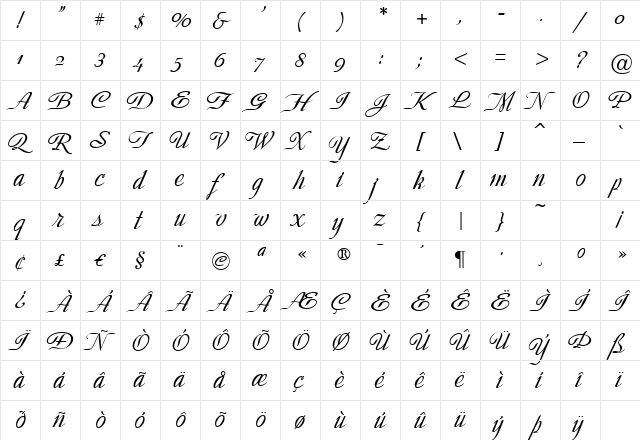
StellaAnnJF Regular
Design Context for StellaAnnJF Typeface
StellaAnnJF is a composed and adaptable typeface that performs quietly and consistently across a wide range of design contexts.